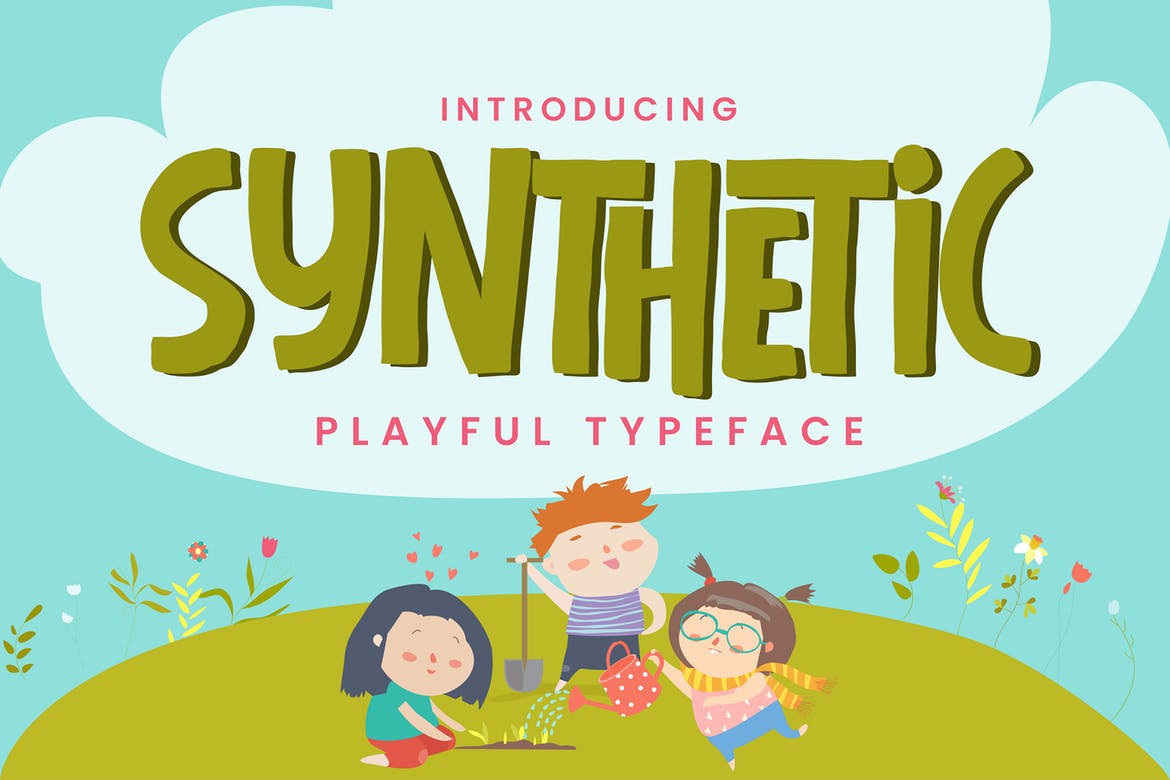
Playful Typeface Font
Hello Everyone, Introduce our new collection Syhthetic – Playful Typeface Font Fun All Caps Font and display for posters, packaging, branding, logotype and more.
Syhthetic font with strong and challenging nuances. very suitable for the title, branding projects,typography,Logo, Poster, magazines, brochures, packaging,Websites and much more for your design needs, making your designs more modern and professional,kids,unique and sweety